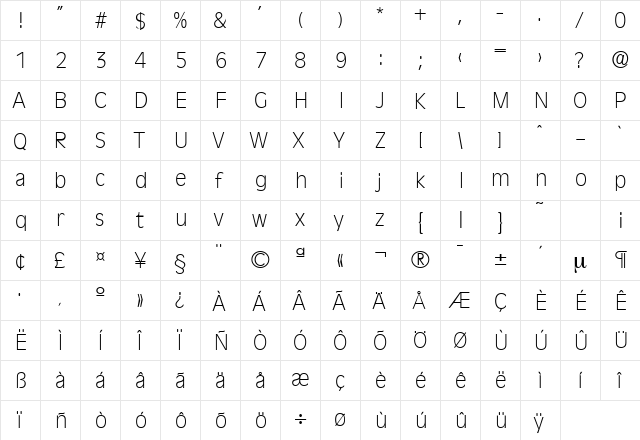
Ravenna-Serial-ExtraLight Regular
Design Context for Ravenna-Serial-ExtraLight Typeface
Ravenna-Serial-ExtraLight is a composed and adaptable typeface that performs quietly and consistently across a wide range of design contexts. Its slender proportions lend an understated elegance to any composition.